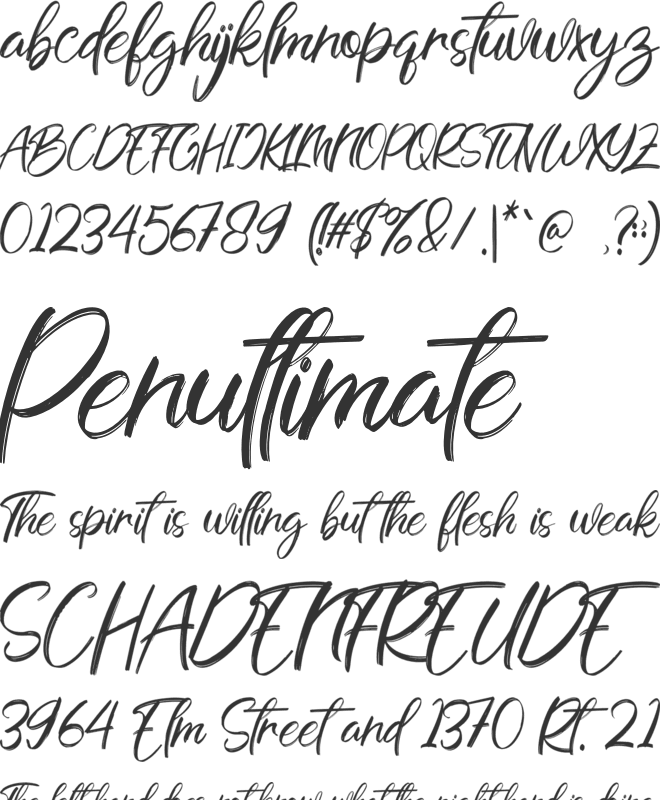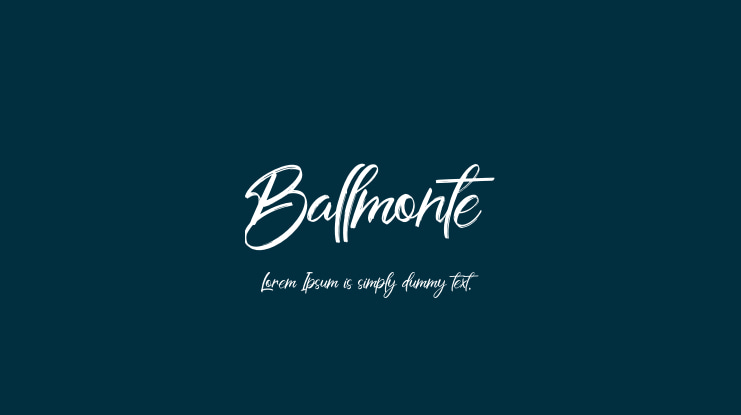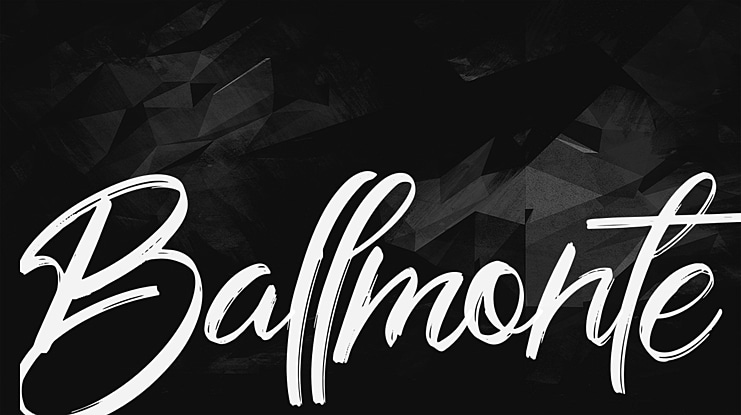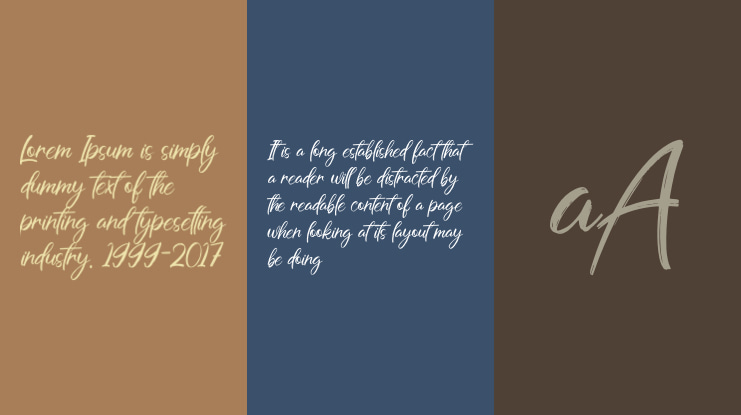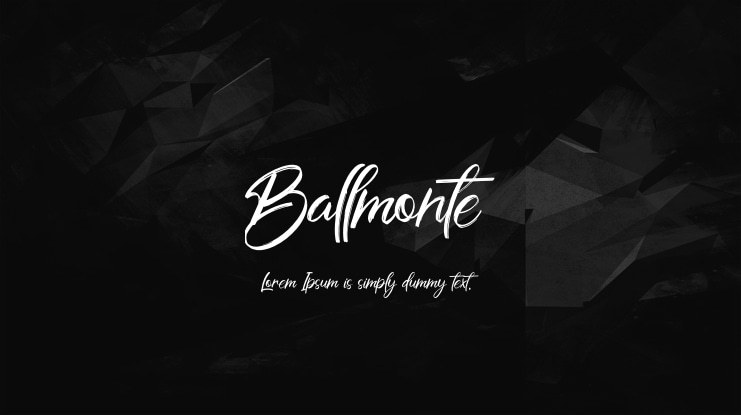
Ballmonte Font
Febryl Arully
This is a beautiful handwriting typeface so natural and casual charm with the brush textured make this font look authentic but still readable and incredibly versatile. Each character is made by paying attention to the curves to create a balance for each character. This font will work for invitation design, logos, badge design, poster, packaging, book cover title, quote, social media post, etc.